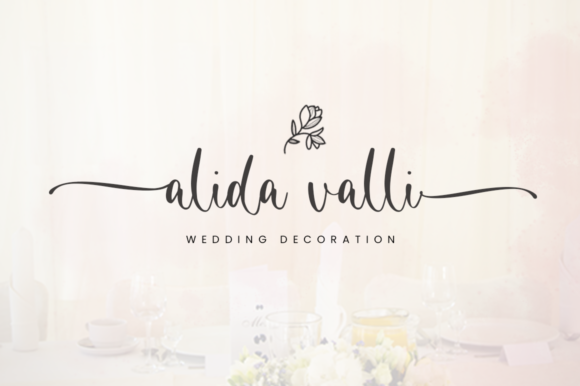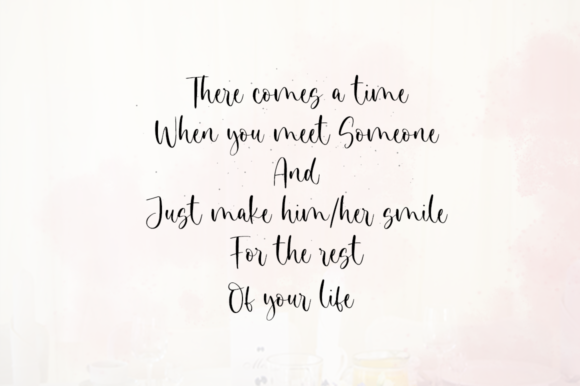
About Magistone Font
Magistone is a beautiful calligraphy font perfect for crafting, branding, invitation, stationery, wedding designs, social media posts, advertisements,and so much more! This font is PUA encoded which means you can access all of the glyphs and swashes with ease!